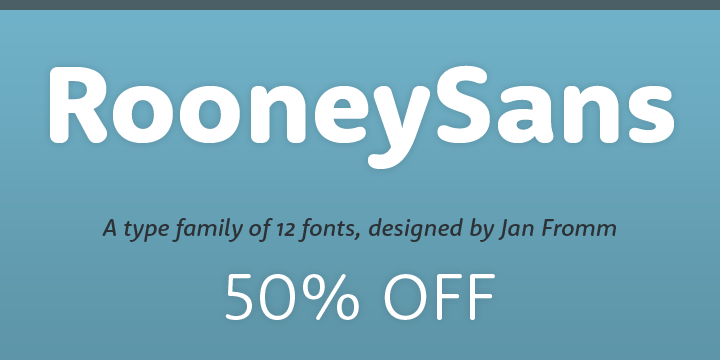
Rooney Sans is a font created and published by Jan Formm in 2012. It is the latest addition to the Rooney family.
Rooney Sans font details
Foundry: Jan Formm